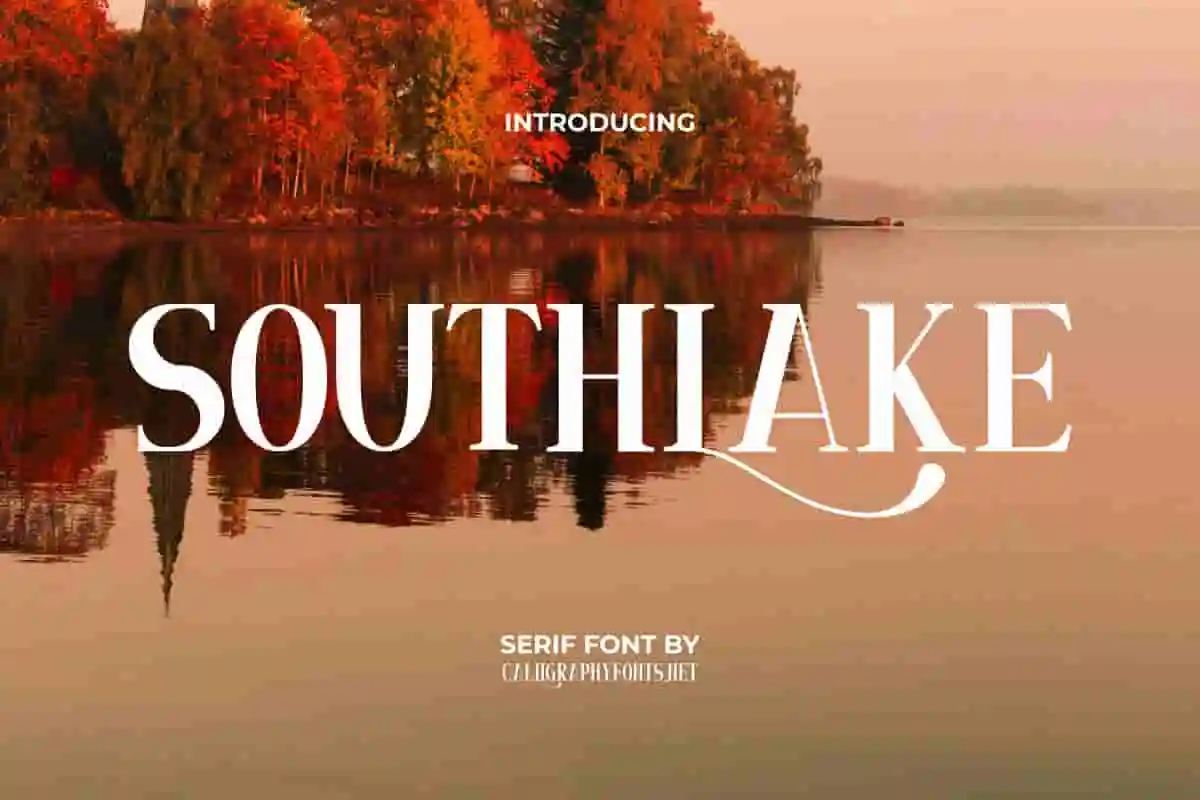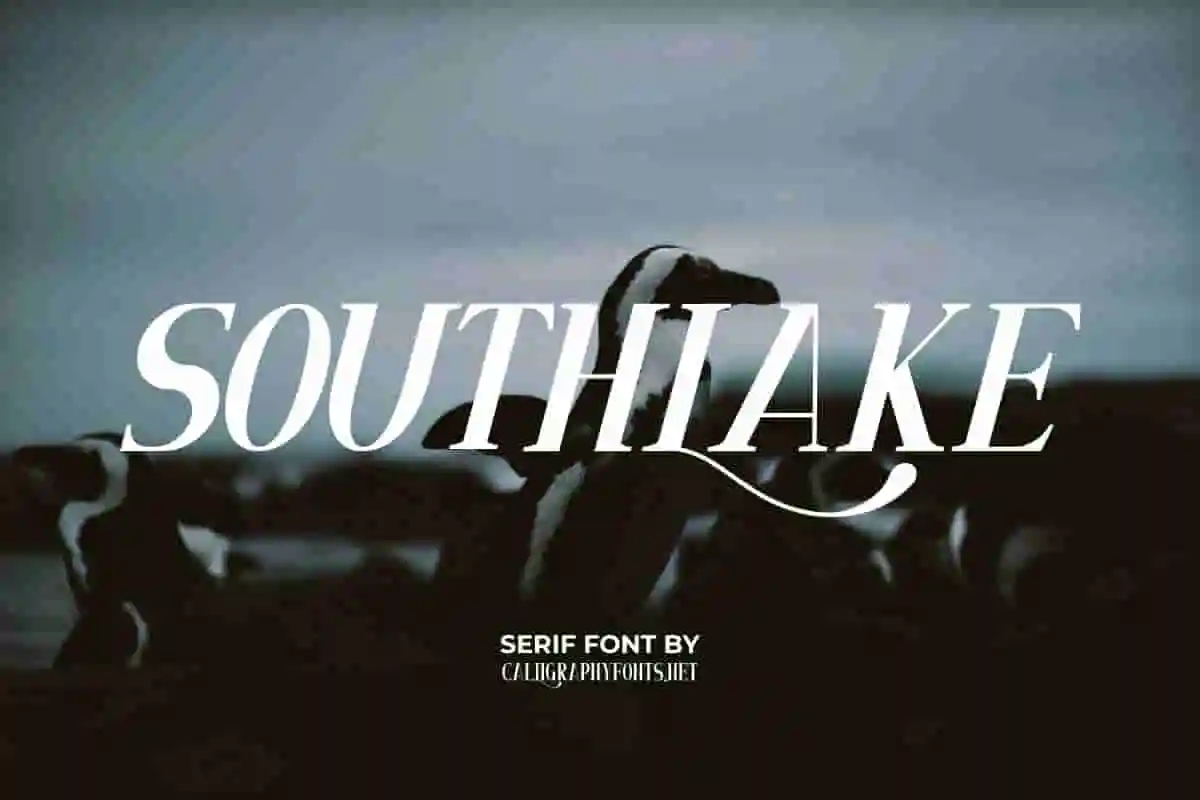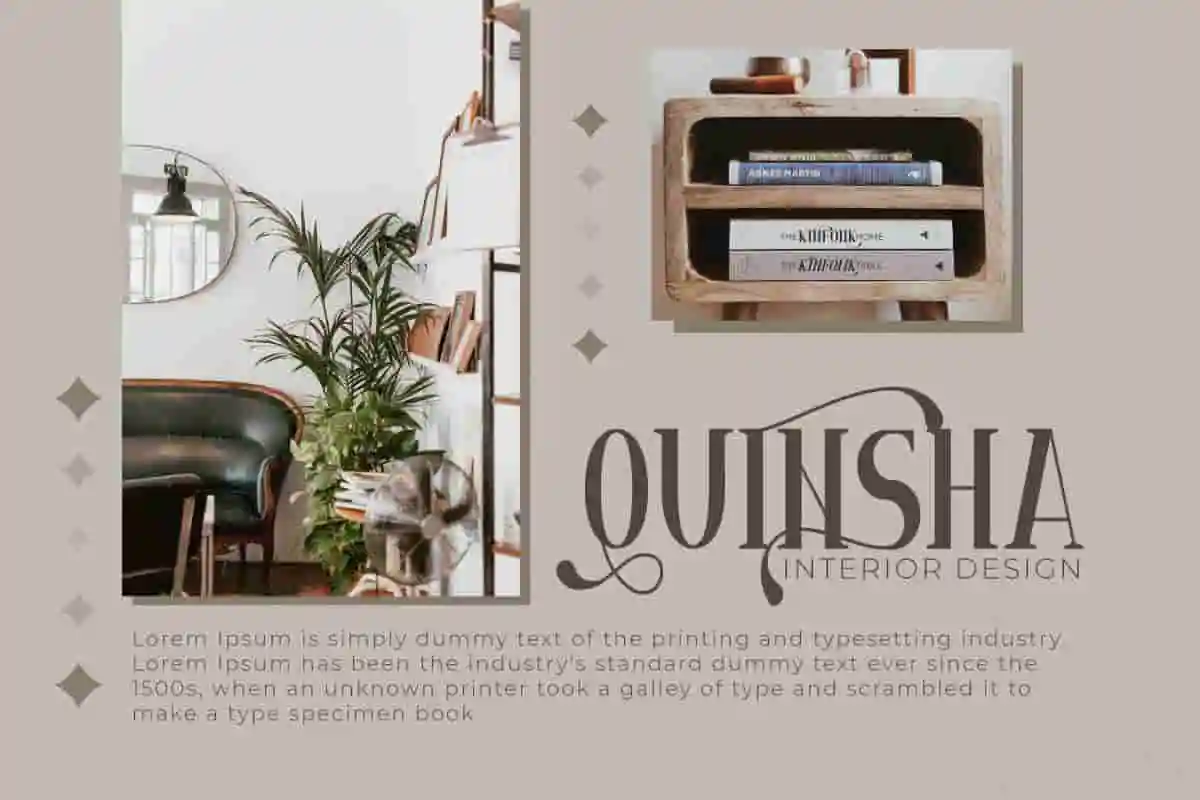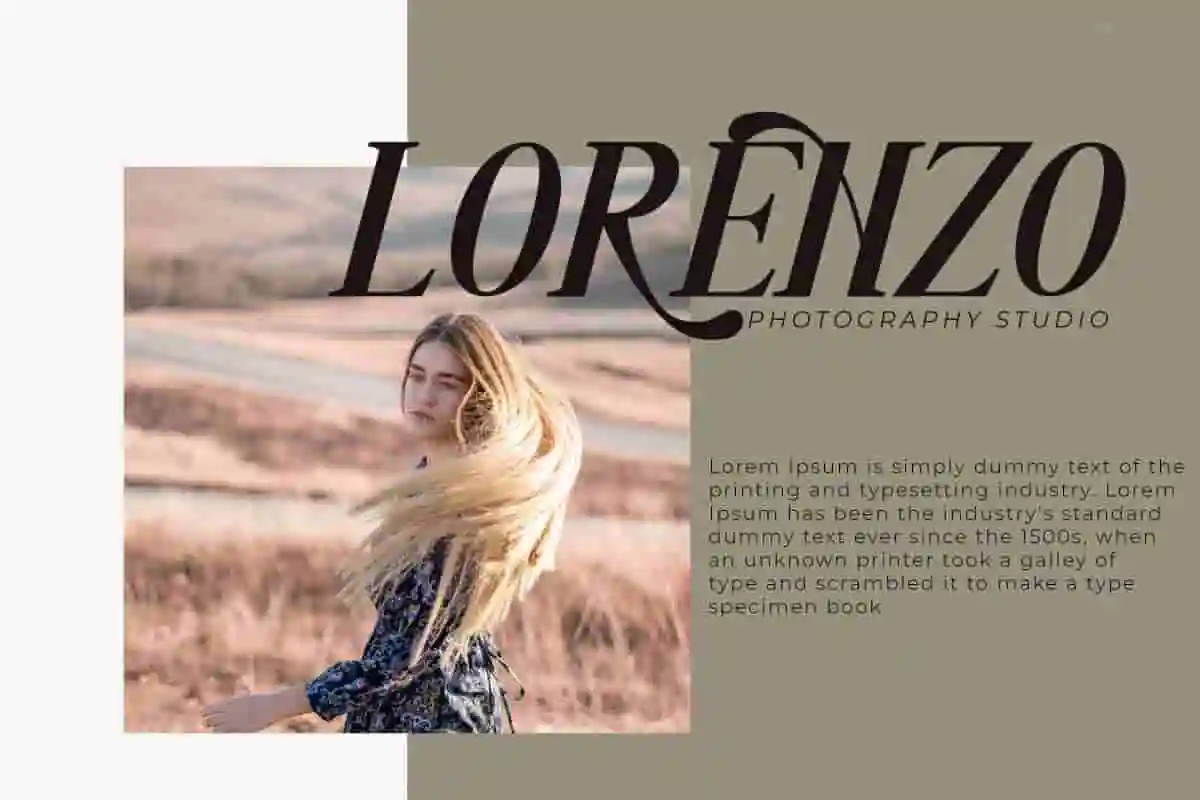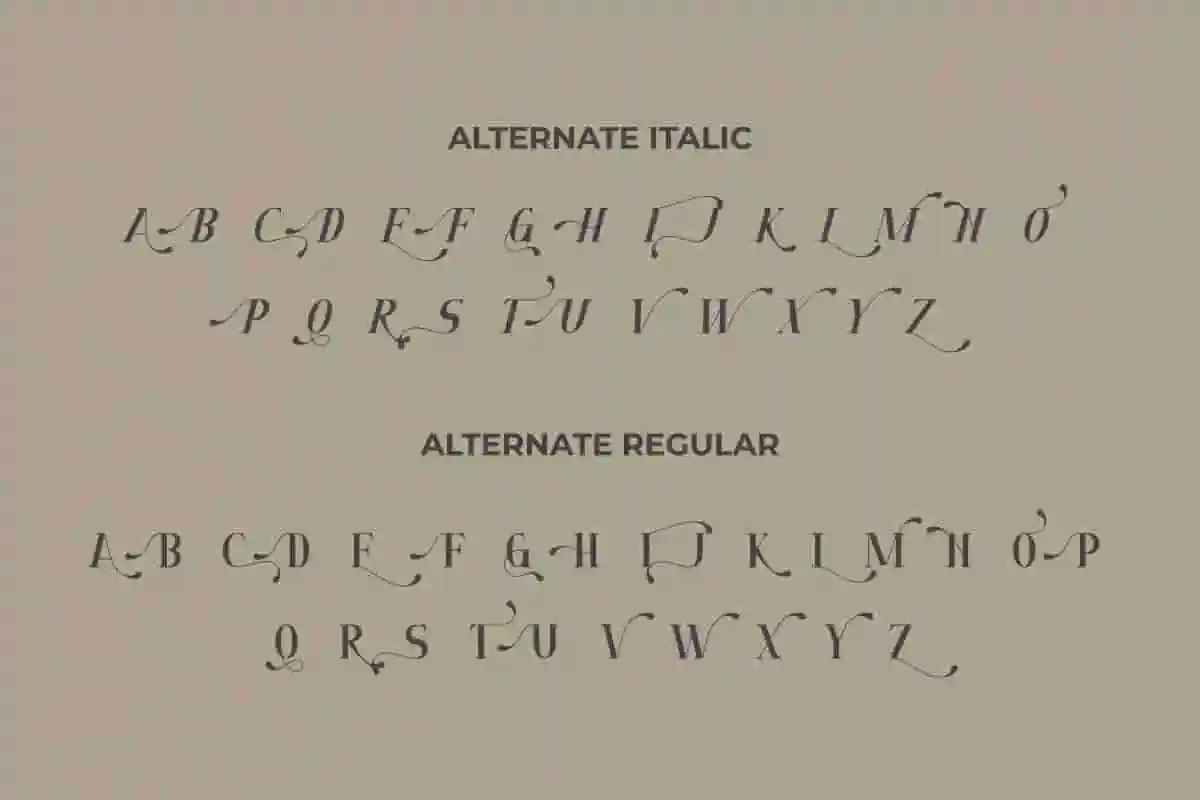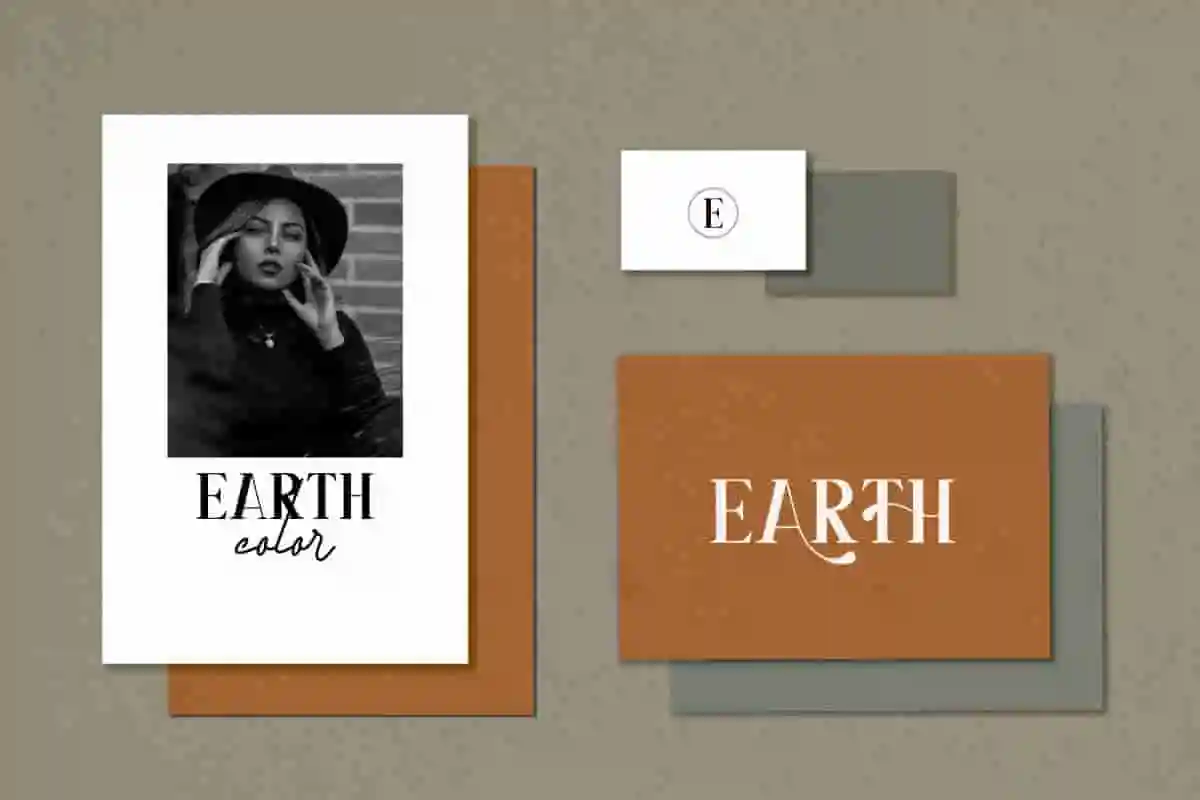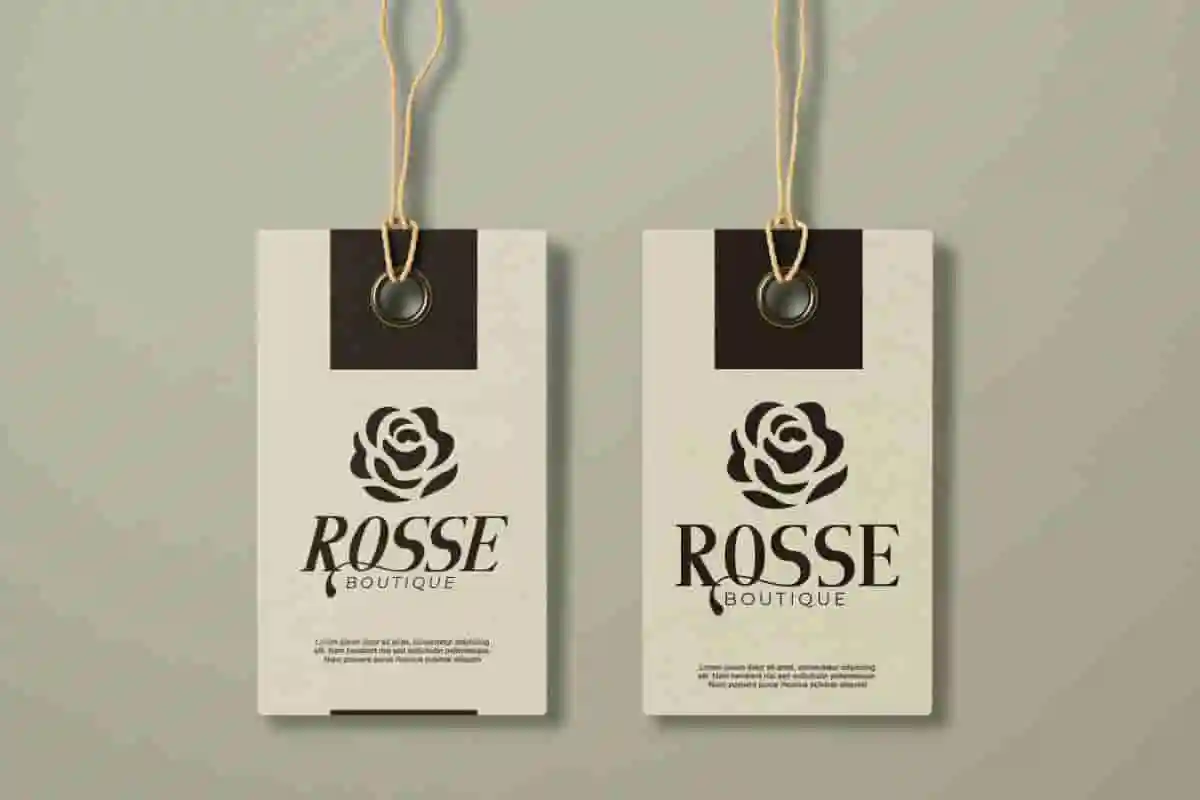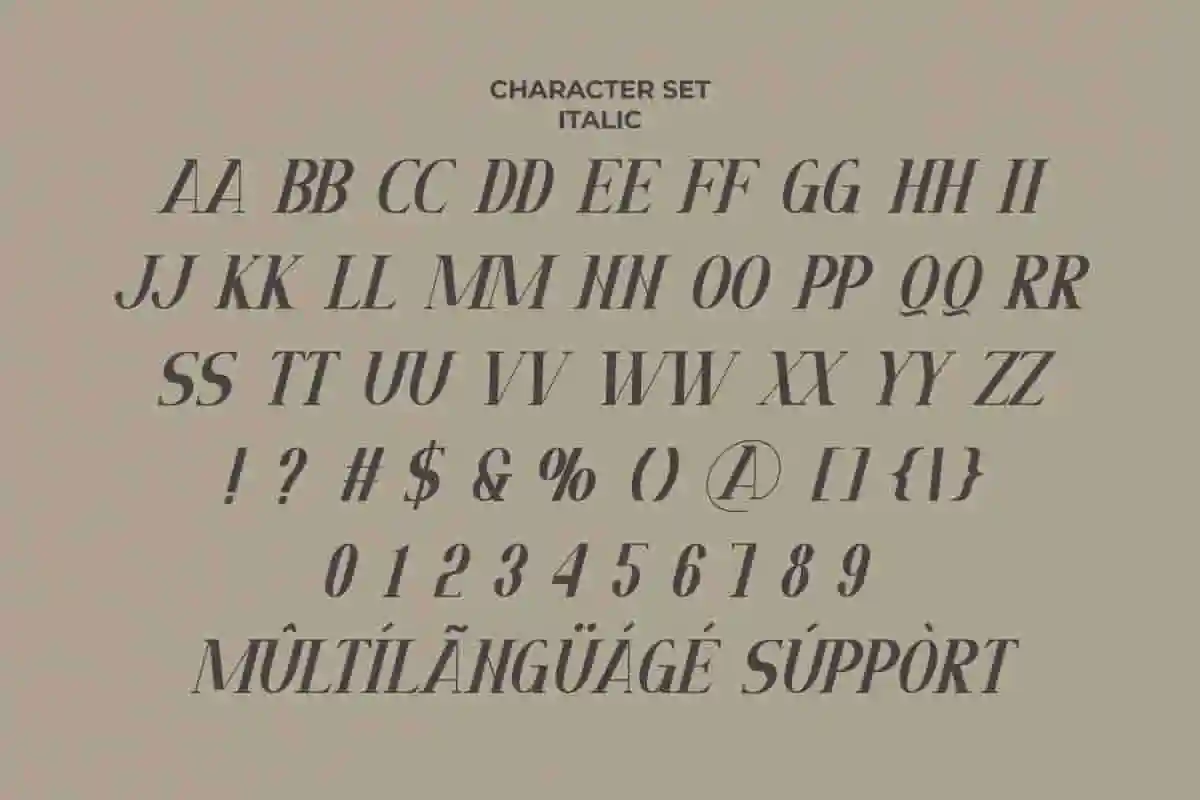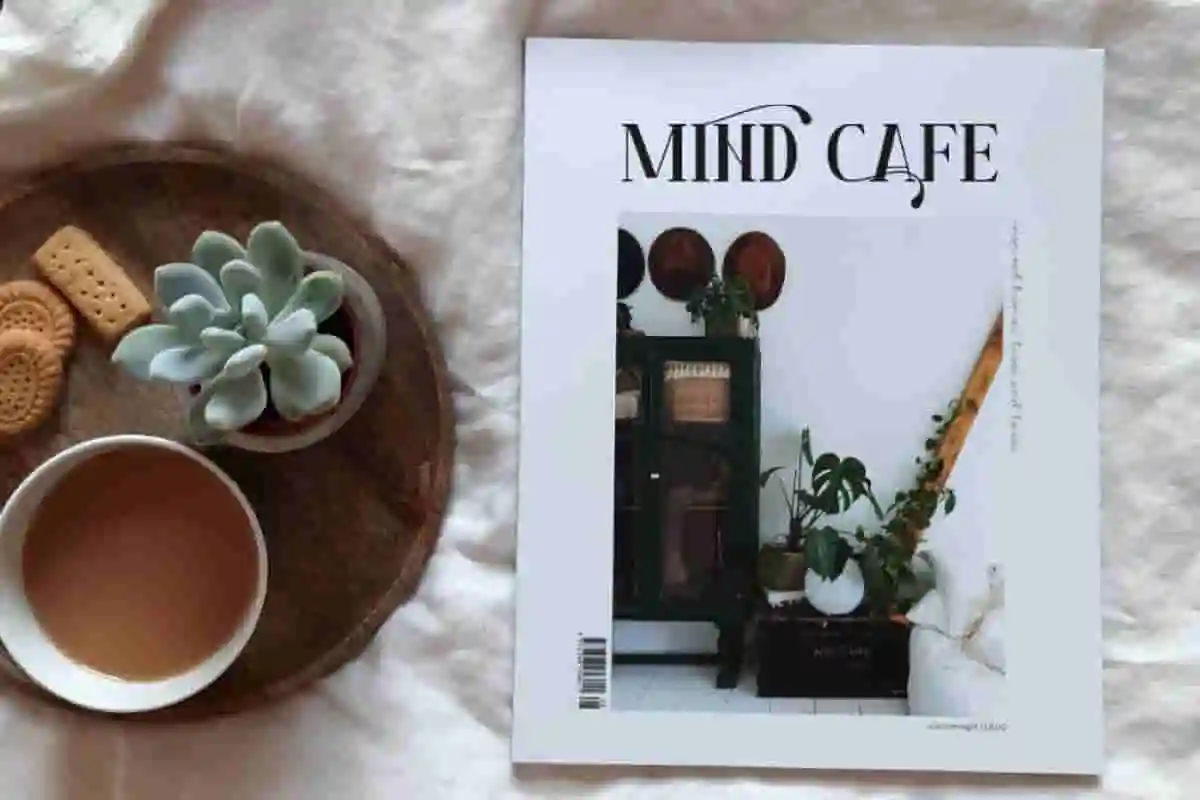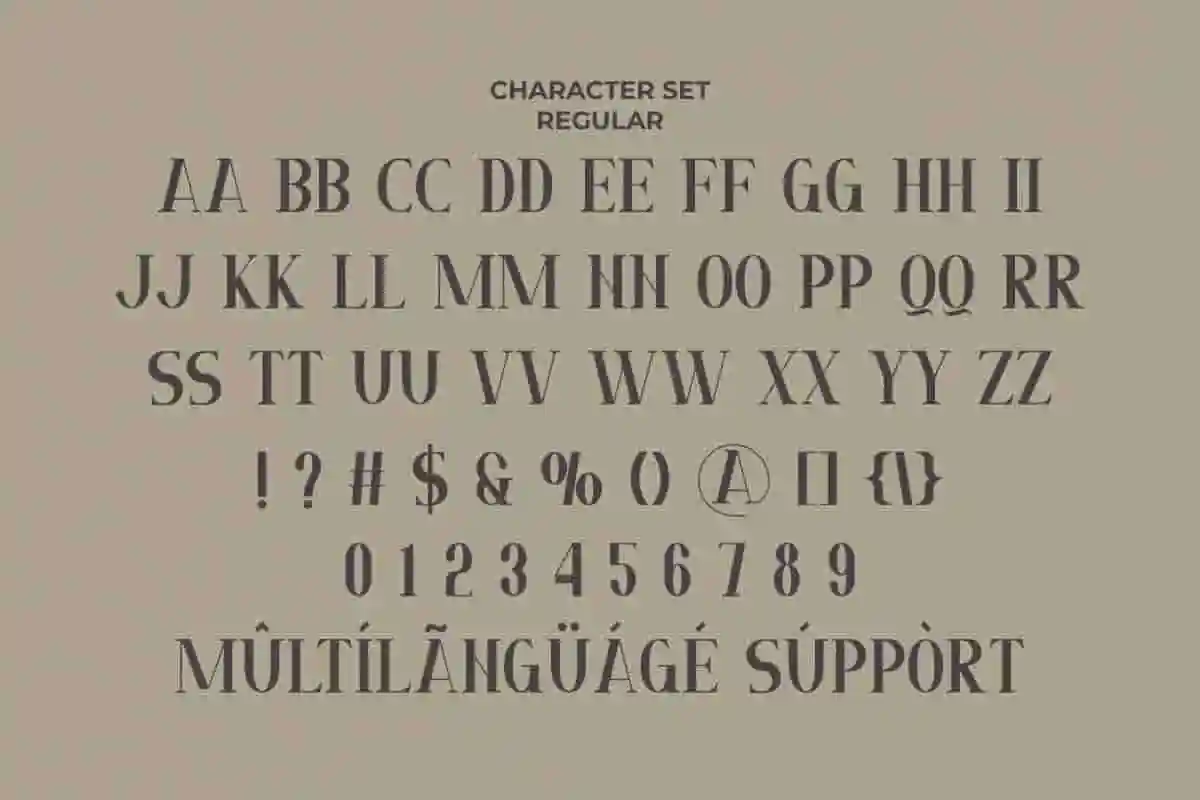
Southlake Serif Font
Southlake is a serif display font family has 2 styles : regular and italic. The style of this font are stylish, clean, elegant, and modern font.
Add a touch of sophistication to your designs with Southlake Sans Serif Font, a refined and versatile typeface that blends traditional serif charm with a fresh modern twist. Designed for creatives who value elegance, readability, and timeless appeal, this font is perfect for making your projects stand out with class.
Imagine your logo, headline, or product name in stylish serif lettering that communicates confidence, prestige, and beauty. Southlake Serif Font is more than just typography—it’s a design tool that helps you tell your story with sophistication.
When you need a font that’s stylish, versatile, and unforgettable, Southlake Serif Font is the ideal choice.